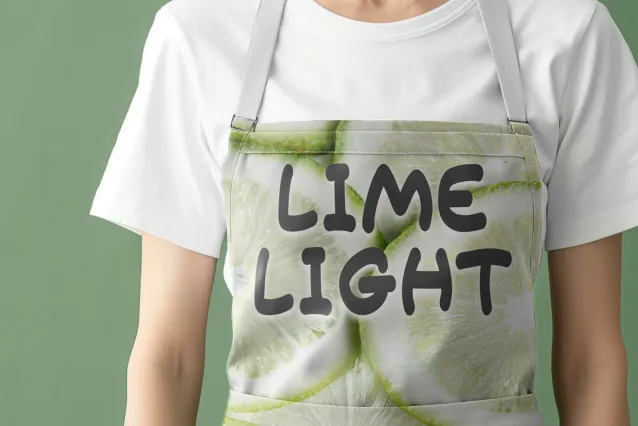
Banolime is a modern and stylish font that brings a fresh look to any design. Its clean and smooth letter shapes make it versatile for different creative projects. Whether you want to create something playful, professional, or eye-catching, Banolime adapts perfectly to your design needs.
This font is designed with careful attention to detail, giving it a high level of aesthetics and readability. It works well for both large headings and smaller text, making it a great choice for posters, banners, book covers, and social media graphics.
The unique style of Banolime adds personality and charm to every project. Banolime is also suitable for branding and merchandise.
You can use it for logos, packaging, and promotional materials to give your brand a distinct and memorable appearance. Its contemporary style ensures that your designs will look modern and appealing.
Banolime Font Family
Type Display Font